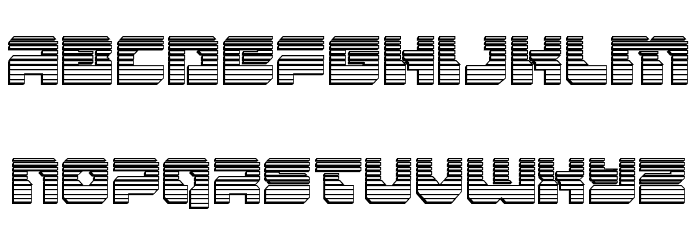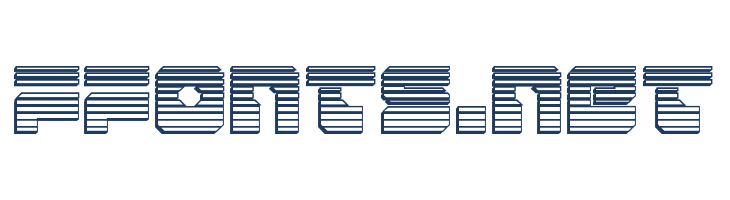
Yamagachi 2050 Chrome Font
This font features a futuristic and geometric design, characterized by its bold, multi-layered lines that create a three-dimensional effect. Each character is constructed with parallel horizontal lines, giving it a unique, chrome-like appearance. The font's structure is rigid and angular, with sharp edges and a consistent width throughout. It has a strong visual impact, making it suitable for projects that require a modern and technological aesthetic. The uppercase and lowercase letters maintain a uniform style, while the numbers and special characters complement the overall design seamlessly.
A futuristic, geometric font with bold, multi-layered lines and a chrome-like appearance.
- Proposed Projects: Ideal for sci-fi themed designs, technology branding, video game titles, and futuristic posters.